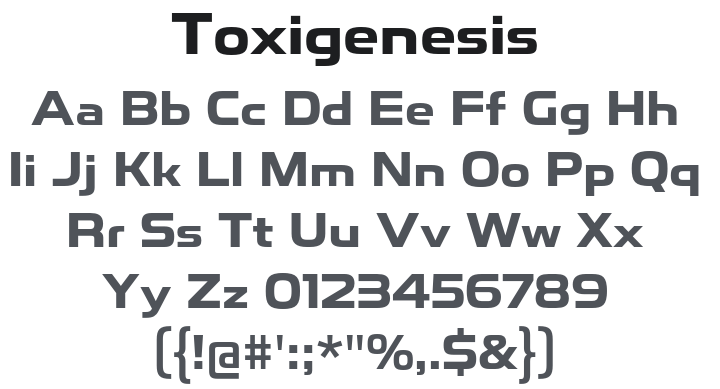
Toxigenesis Font
About Toxigenesis
Toxigenesis is a wide, precision-built sans serif that balances engineered strength with refined clarity. Its clean geometry and confident horizontal stance create a stable, polished look across five weights with matching italics. Light styles bring precision to technical documents and interfaces, while the heavier cuts add authority to packaging, signage, and bold headlines. Supporting Latin, Greek, Cyrillic, and Vietnamese scripts, it’s designed for seamless global communication. Consistent and versatile, Toxigenesis delivers modern industrial professionalism wherever clarity and confidence are essential.